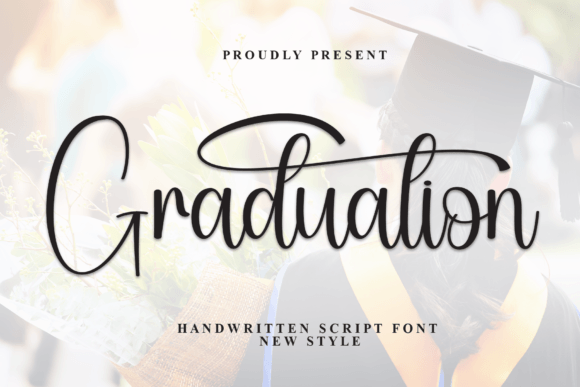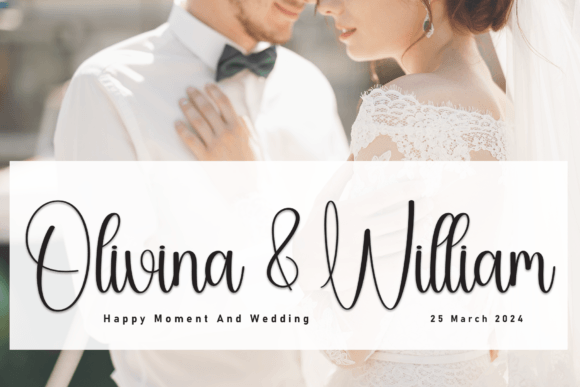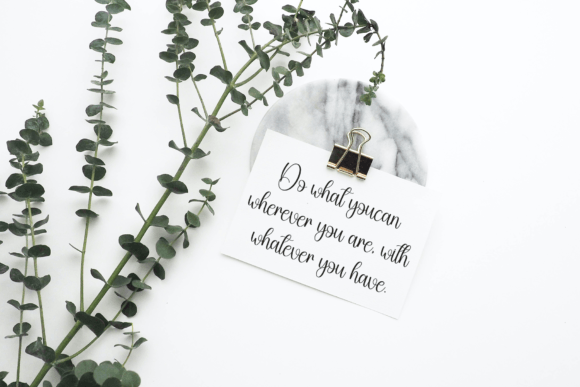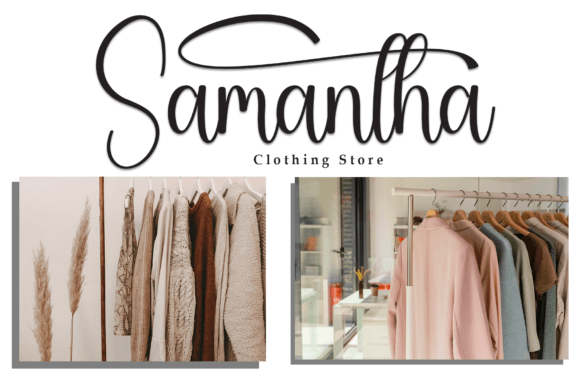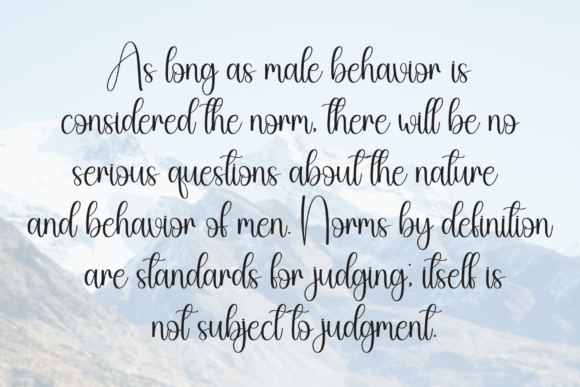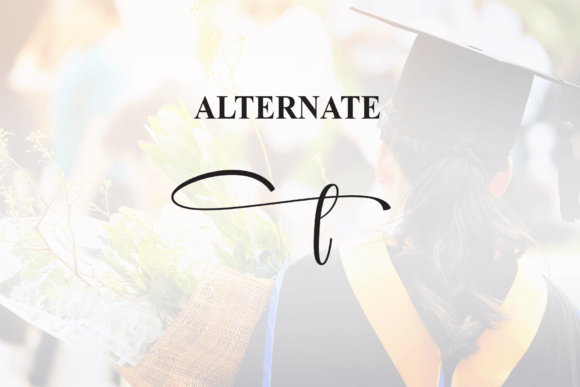
The Perfect Script: Unveiling the Timeless Elegance of Graduation Font
As I sat at my desk, surrounded by scraps of paper and a plethora of fonts, I was on a mission to find the perfect script to match the whimsical wedding invitation I had envisioned. That’s when I stumbled upon Graduation Font – and it was love at first sight. Its flowing lines, delicate flourishes, and classic charm instantly captured my heart, and I knew I had found the perfect partner for my design.
Graduation Font is a stylish and incredibly elegant script font that exudes sophistication and refinement. Its versatility makes it an ideal choice for a wide range of designs, from wedding invitations and thank you cards to quotes, greeting cards, logos, business cards, and more. As a designer, I can attest to the value of having a font like Graduation Font in your arsenal – it’s a game-changer that can elevate any project to new heights.
Graduation Font Key Features
- Font Family: Graduation Font is a unique script font designed to resemble a graduation certificate.
- Character Count: The font contains 240 characters, including uppercase and lowercase letters, numbers, and punctuation.
- Unique Characteristics: Distinctive graduation cap-inspired design elements, including a curved top and a tassel-like flourish.
Graduation Font Review
Overall, I was quite excited to dive into the “Graduation Font” – a font designed to evoke a sense of celebration and achievement. Upon initial inspection, here’s what I found:
- ✨ Unique and playful characters that truly capture the essence of a graduation day. The swashes and flourishes add a touch of elegance and sophistication.
- ✨ The font is highly legible, making it perfect for any celebratory occasion where readability is key.
- ✨ The font supports a wide range of languages, making it an excellent choice for international events.
- ⚠️ The font may not be suitable for formal, traditional events where a more subdued tone is required.
- ⚠️ Some users may find the font’s playful nature to be distracting or overwhelming, especially in large blocks of text.
- ⚠️ The font’s uniqueness may not be to everyone’s taste, and some users may prefer a more traditional or classic font.
Overall, I think the “Graduation Font” is a great choice for any celebratory occasion that requires a touch of elegance and playfulness. While it may not be suitable for every event, it’s definitely worth considering for those special moments that deserve to be commemorated in style.
The Graduation Font is commonly used for:
- Graduation certificates and diplomas
- Academic and professional resumes
- Special occasion invitations and announcements
- Wedding and event stationery
Tips for Getting the Most Out of Graduation Font
Here are some tips for using the Graduation Font effectively:
- Use the font in combination with other decorative elements, such as ribbons and seals.
- Adjust the font size and color to match the tone and style of your design.
- Use the font in conjunction with a clear and concise message to convey your intended meaning.
Alternatives to Graduation Font for Designers
Playfair Display is an elegant, high-end font ideal for formal invitations, luxury branding, and high-end publications. It features intricate details and ornate flourishes, making it a great choice for designers seeking sophistication and refinement. Compared to Graduation Font, Playfair Display has a more classical and luxurious feel, making it suitable for high-end applications.
Didot is a classic serif font known for its refined and sophisticated look. It’s often used in high-end publications, luxury branding, and formal invitations. Compared to Graduation Font, Didot has a more traditional and timeless feel, making it suitable for designers seeking a classic look. However, it can be quite formal, so it’s best used in applications where a level of sophistication is required.